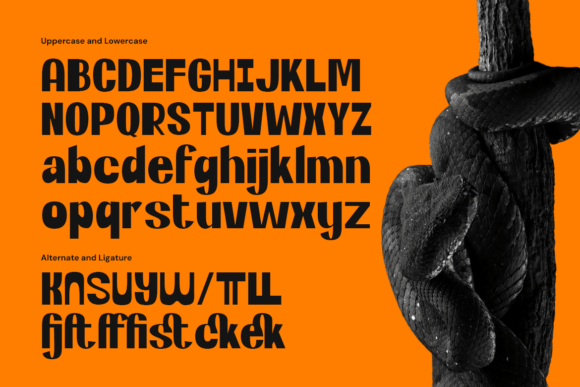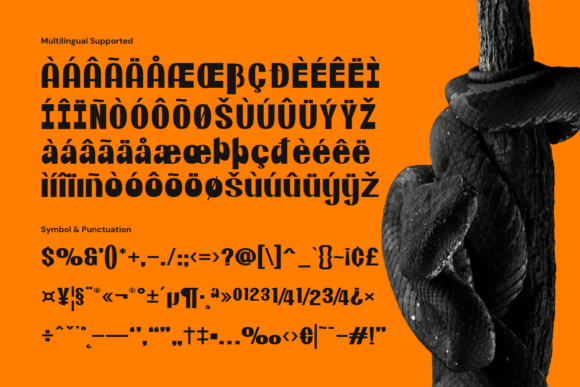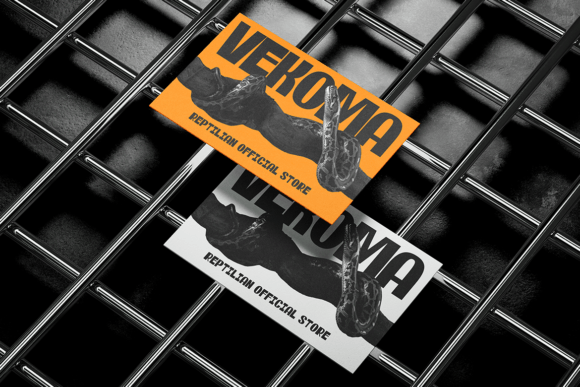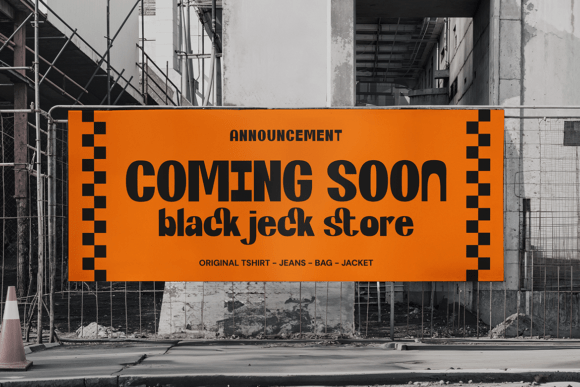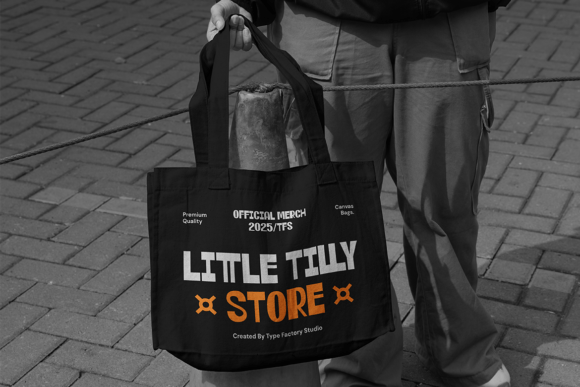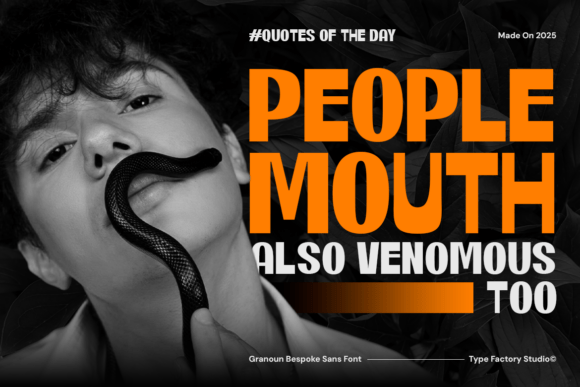
Unlocking Bold Typography with Granoun Font
Have you ever stared at a blank page, searching for the perfect font to elevate your design? I’m sure many of us have been there, pouring over typography options, trying to find that elusive combination of style and readability. For those seeking a bold, eye-catching font that still communicates effectively, I’m excited to introduce you to Granoun Font – a modern sans serif typeface designed to make a statement.
Granoun Font is a versatile, condensed sans serif font that combines a strong geometric structure with heavy letterforms. Its modern display style is perfect for creating high visual impact in posters, branding, and streetwear graphics. With its clear readability and extensive character set, Granoun Font is a valuable addition to any designer’s toolkit. Whether you’re working on a high-energy project or need a bold, attention-grabbing font, Granoun Font is sure to deliver.
Granoun Font Key Features
- Unique Characteristics: Features a unique blend of modern and vintage elements, with subtle texture and organic feel, ideal for creating distinctive and eye-catching designs.
- Language Support: Supports a wide range of languages, including Latin, Cyrillic, Greek, and many others, making it a versatile choice for global branding and communication.
- Font Weight and Style: Available in 6 weights (Light, Regular, Medium, Bold, Extra Bold, and Black) and 3 styles (Regular, Italic, and Oblique), providing ample flexibility for various design applications.
Granoun Font Review
As a designer, I’ve had the chance to work with the Granoun Font, and I must say it’s an interesting addition to the world of typography. ✨ One of the things that stands out is its unique, hand-drawn feel. The font has a certain charm to it, making it perfect for projects that need a personal touch.
The font’s versatility is another plus. It works well in both digital and print media, and it’s not limited to a specific language or style. ✨ It can be used for a wide range of projects, from logos to signage, and even for editorial content. However, it’s essential to note that the font’s readability can be an issue in certain contexts.
- ⚠️ The font’s readability can be compromised in small sizes or when used in situations where clarity is crucial.
- ⚠️ The font’s hand-drawn feel, while charming, can also make it difficult to pair with other fonts.
Overall, I think Granoun Font is a great option for designers who want to add a unique touch to their projects. While it has its limitations, it’s definitely worth considering for projects where a personal, hand-drawn feel is desired. Just be mindful of the font’s readability and pairing limitations.
Getting the Most Out of Granoun Font
Here are some tips to get the most out of Granoun Font:
- Experiment with different font sizes and styles to create a visually appealing design.
- Combine Granoun Font with other fonts to create a unique and interesting typography.
- Use Granoun Font for headings and titles to create a clear hierarchy of information.
Granoun Font is suitable for a variety of design projects, including:
- Logo design
- Branding materials
- Print and digital marketing materials
- Editorial and publishing projects
Q: What is the character set of Granoun Font?
The Granoun Font includes a comprehensive character set, including Latin, Cyrillic, and Greek alphabets, as well as punctuation and symbol characters. It also includes a range of ligatures and contextual alternates to enhance the font’s legibility and aesthetic appeal.